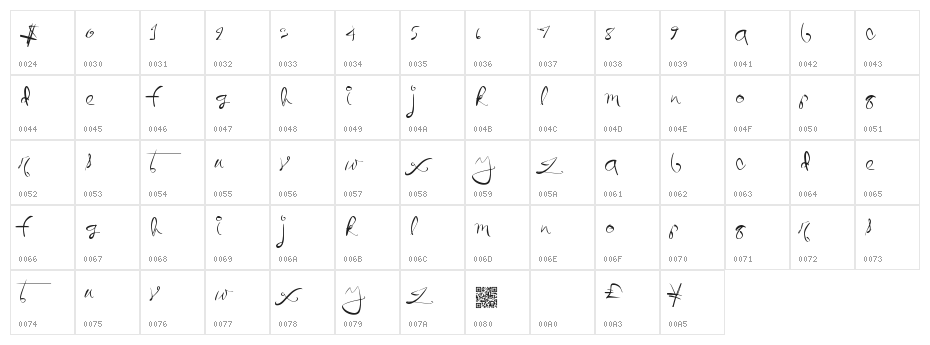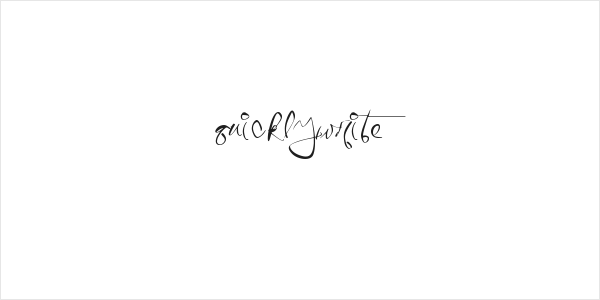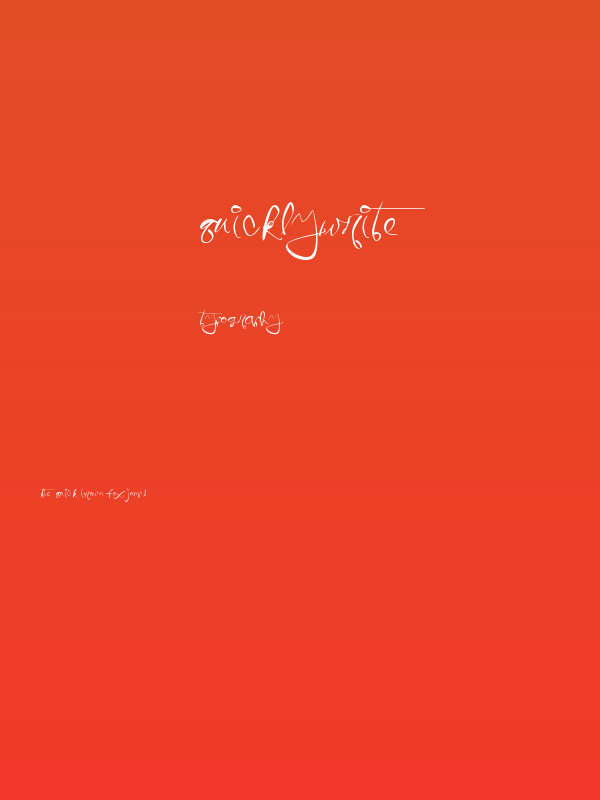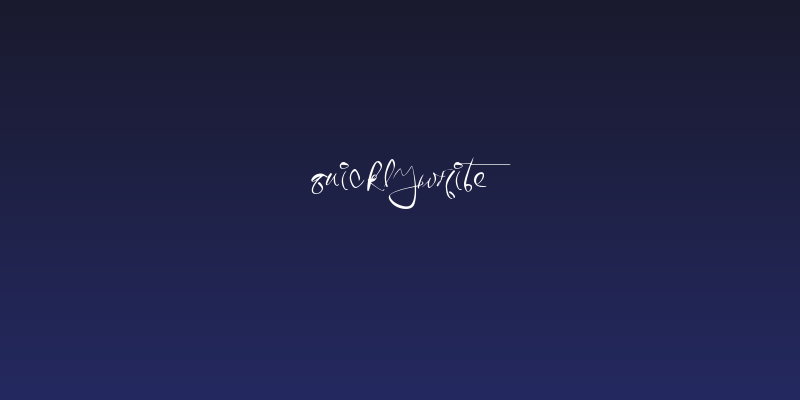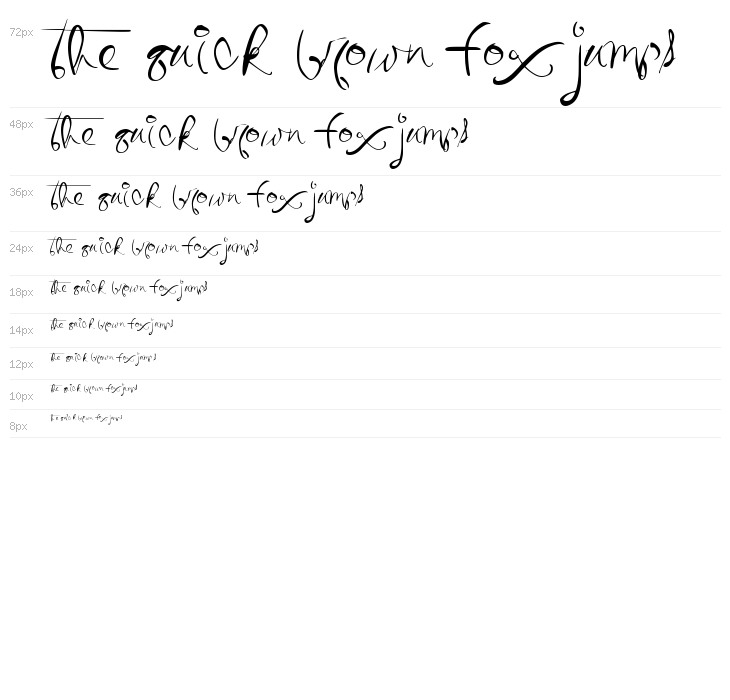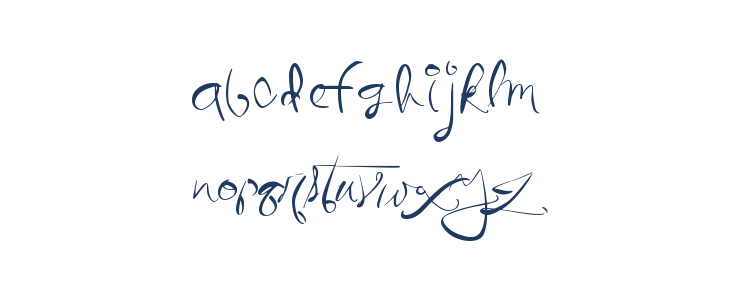
QuicklyWrite Font
QuicklyWrite Description
This font features a dynamic and fluid handwritten style, characterized by its elegant and artistic flair. The letters are crafted with a sense of movement, showcasing varying stroke widths that add a lively and expressive quality. The uppercase and lowercase letters maintain a consistent style, with elongated ascenders and descenders that enhance its graceful appearance. The numerals are equally stylized, matching the overall aesthetic of the alphabet. Special characters are integrated seamlessly, maintaining the artistic flow. This font is ideal for projects that require a personal touch, such as invitations, greeting cards, or creative branding.
| Use Case | Logos, Headlines, Artistic projects |
| Proposed Projects | Ideal for invitations, greeting cards, creative branding, and artistic projects. |